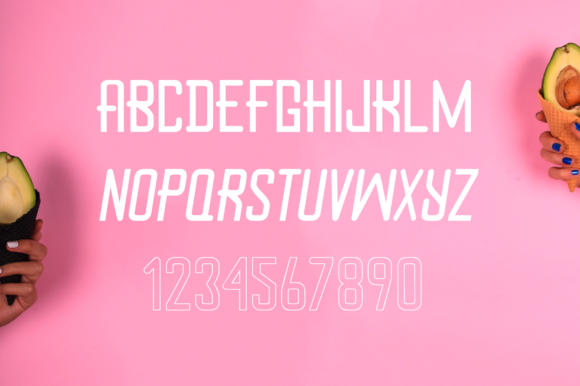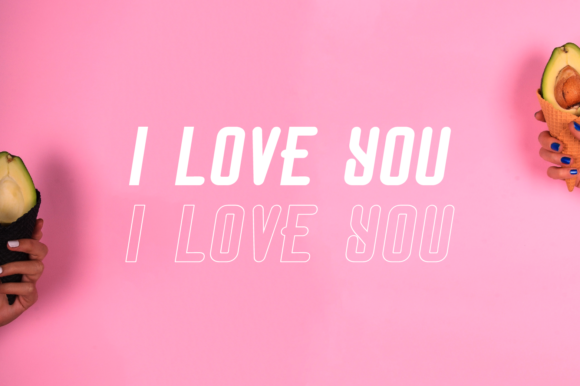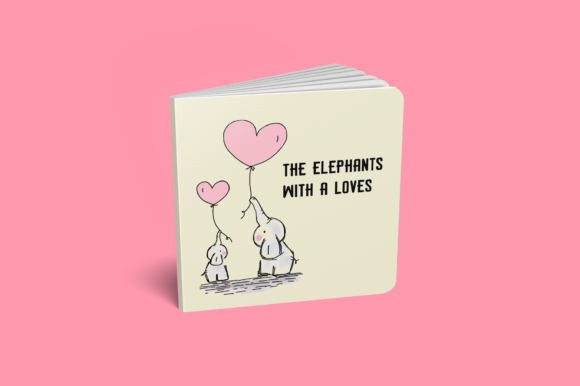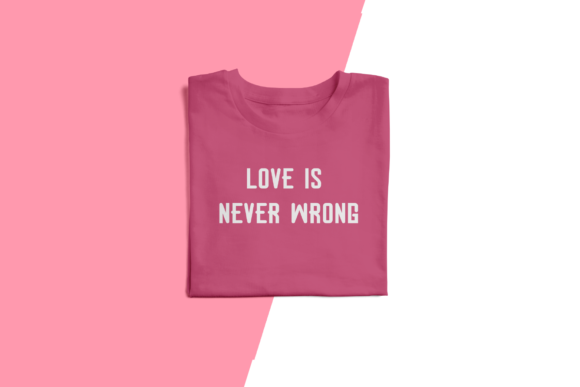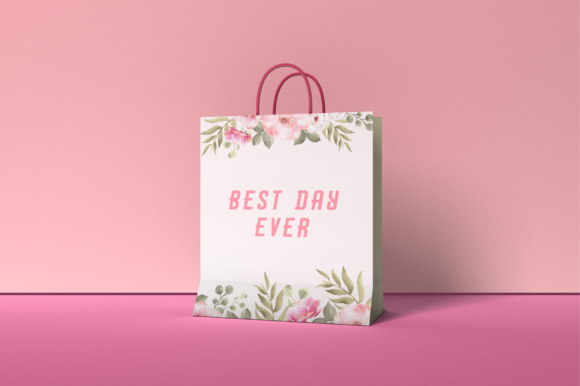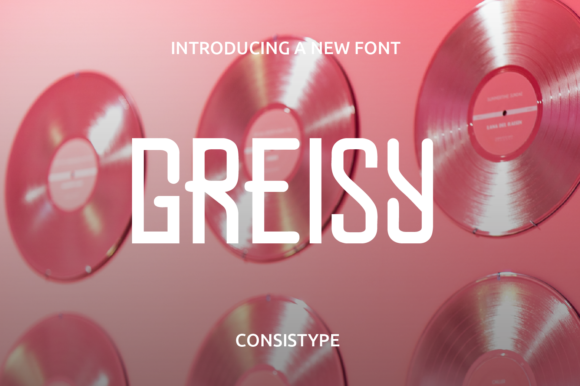
Discover the Playful Charm of Greisy Font: A Modern Sans Serif Delight
Are you on the hunt for a font that embodies a perfect blend of playfulness and modernity? Look no further than Greisy Font, a delightful sans serif typeface that is sure to capture your heart. With its cute feel and contemporary vibe, Greisy is an excellent choice for designers and crafters seeking to add a fresh touch to their projects.
What Makes Greisy Font Stand Out?
Greisy Font boasts a unique and playful design that sets it apart from more traditional typefaces. Its sans serif design gives it a clean and modern look, making it perfect for a wide range of applications, from digital media to print materials. The font’s rounded edges and smooth lines contribute to its friendly and approachable feel, making it an ideal choice for projects that require a touch of whimsy and charm.
Key Features of Greisy Font
- Playful and Unique Design: Greisy Font’s distinctive design makes it perfect for projects that require a bit of personality.
- Modern Sans Serif Style: The font’s clean and minimalist sans serif style ensures it remains versatile and easy to read.
- Cute Feel: Greisy’s rounded edges and smooth curves give it a friendly and approachable feel.
- Highly Versatile: Suitable for a wide range of projects, including branding, packaging, digital media, and more.
Inspiration and Creative Possibilities
Greisy Font’s modern vibe makes it an excellent choice for designers and crafters looking to create something fresh and exciting. Here are a few ideas to get you started:
- Branding and Logos: Use Greisy Font to create a playful and memorable brand identity.
- Digital Media: Add a touch of whimsy to your social media graphics, blog posts, and website designs.
- Packaging: Give your product packaging a modern and eye-catching makeover with Greisy Font.
- Crafting and DIY Projects: Incorporate Greisy Font into your crafting and DIY projects, such as handmade cards, invitations, and more.
Tips for Using Greisy Font Effectively
To get the most out of Greisy Font, here are a few tips to keep in mind:
- Pair with Contrasting Fonts: Combine Greisy Font with a contrasting serif font to create visual interest and hierarchy.
- Experiment with Colors: Greisy Font looks great in a variety of colors, so don’t be afraid to experiment and find the perfect hue for your project.
- Use it Sparingly: While Greisy Font is certainly attention-grabbing, it’s best used sparingly to avoid overwhelming the reader.
Greisy Font is a playful and unique sans serif font that is sure to bring a modern touch to your designs. With its cute feel and versatile design, it’s an excellent choice for a wide range of projects. Whether you’re a designer, crafter, or simply someone looking for a fresh font to add to your collection, Greisy Font is definitely worth checking out. So why not give it a try and see how it can inspire your next creative project?